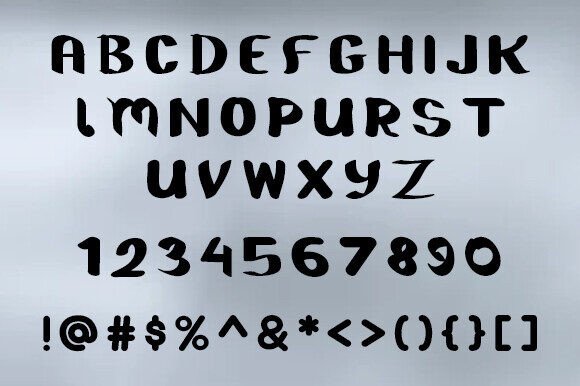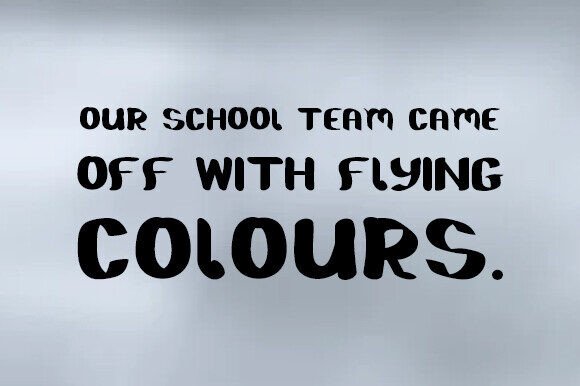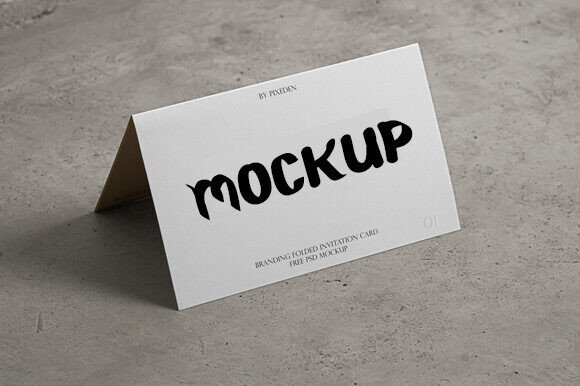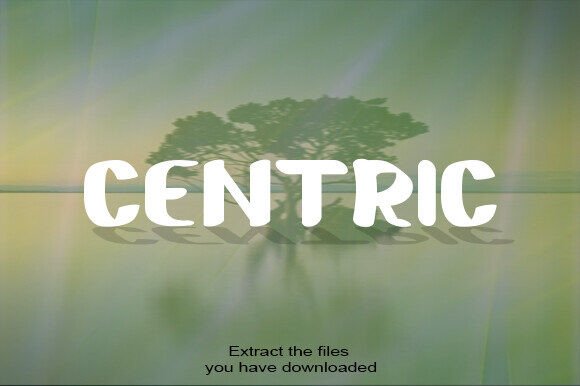
Introducing Centric Font: The Sweet and Friendly Handwritten Font
Are you tired of using the same old fonts in your designs? Look no further! Centric Font is a beautiful, handwritten font that is sure to add a touch of personality to your projects. With its natural and unique style, Centric Font is incredibly versatile and can be used in a wide range of designs, from rustic and vintage to modern and playful.
The Characteristics of Centric Font
Centric Font is a sweet and friendly handwritten font that is designed to make your designs stand out. Its natural and unique style makes it incredibly fitting to a large pool of designs. The font features:
- Handwritten style: Centric Font has a beautiful, handwritten style that gives it a personal and approachable feel.
- Natural and unique: The font’s natural and unique style makes it incredibly versatile and suitable for a wide range of designs.
- Highly legible: Despite its handwritten style, Centric Font is highly legible, making it perfect for use in both digital and print designs.
The Benefits of Using Centric Font
So, why should you choose Centric Font for your designs? Here are just a few benefits of using this beautiful font:
- Adds personality to your designs: Centric Font’s unique and handwritten style adds a touch of personality to your designs, making them stand out from the crowd.
- Versatile: The font’s natural and unique style makes it incredibly versatile, suitable for use in a wide range of designs, from rustic and vintage to modern and playful.
- Easy to read: Despite its handwritten style, Centric Font is highly legible, making it perfect for use in both digital and print designs.
- Limits are endless: As the font’s creators say, “The only limit is your imagination!” – Centric Font can be used in any design project you can think of.
How to Use Centric Font in Your Designs
Centric Font can be used in a wide range of designs, including:
- Digital designs: Use Centric Font in your digital designs, such as social media graphics, blog posts, and website headers.
- Print designs: Use Centric Font in your print designs, such as business cards, brochures, and posters.
- Crafting projects: Use Centric Font in your crafting projects, such as handmade cards, scrapbooking, and DIY signs.
Tips and Tricks for Getting the Most Out of Centric Font
Here are a few tips and tricks for getting the most out of Centric Font:
- Experiment with different colors: Centric Font looks great in a wide range of colors, so don’t be afraid to experiment and find the perfect color for your design.
- Pair with other fonts: Centric Font pairs well with other fonts, so try combining it with a bold font for headings and a clean font for body text.
- Use it for titles and headings: Centric Font is perfect for use in titles and headings, where its unique and handwritten style can really make your design stand out.
In conclusion, Centric Font is a beautiful, handwritten font that is sure to add a touch of personality to your designs. With its natural and unique style, Centric Font is incredibly versatile and can be used in a wide range of designs. Whether you’re a designer, crafter, or DIY enthusiast, Centric Font is a great choice for any project. So why not give it a try and see what amazing designs you can create?